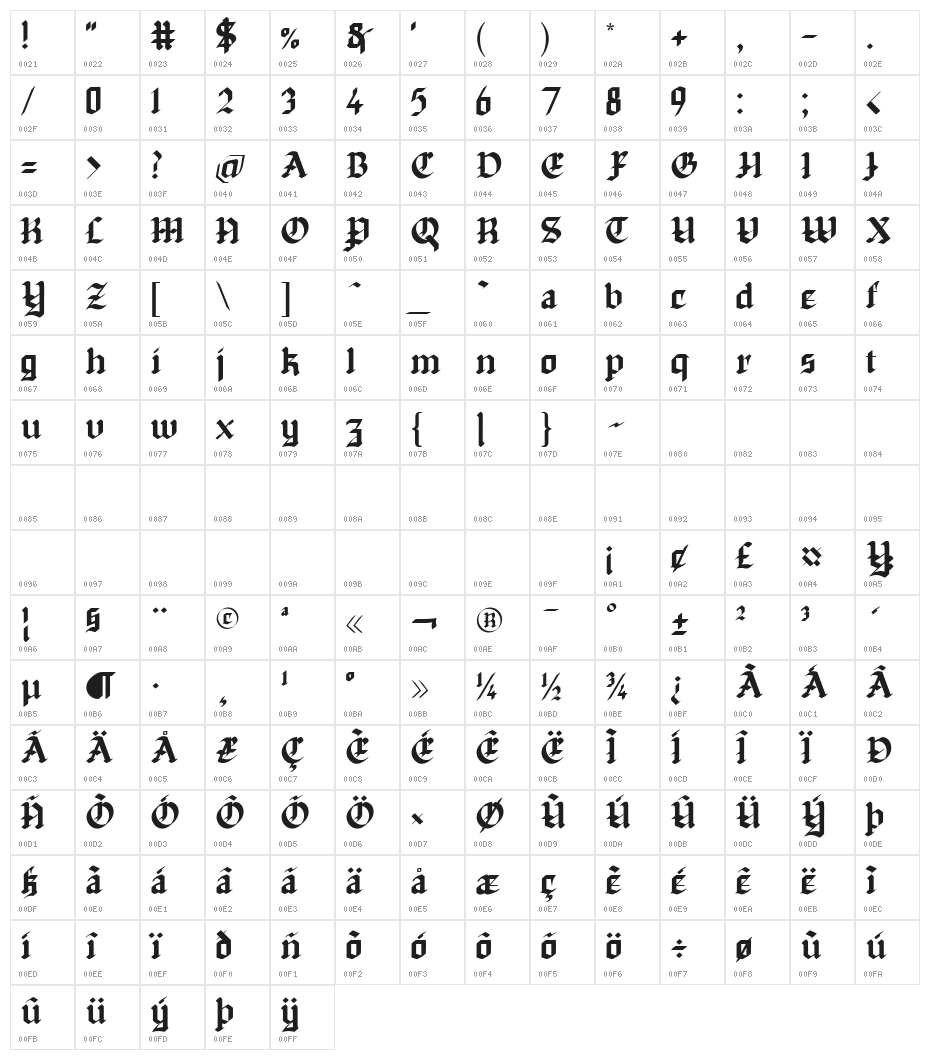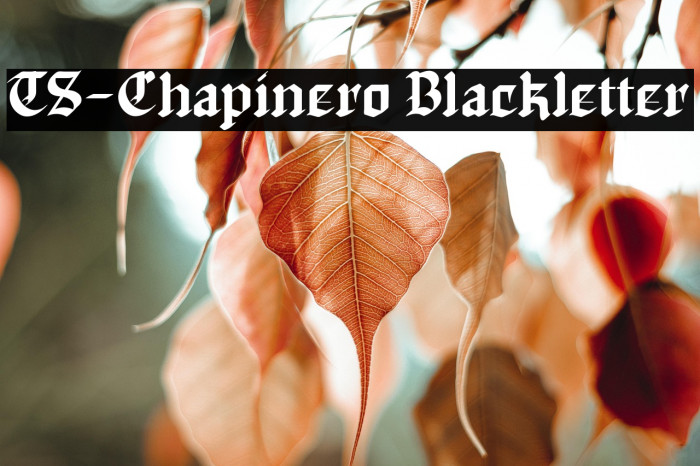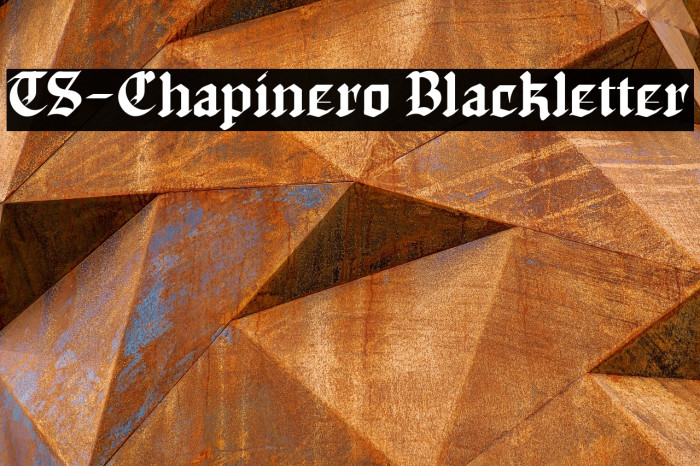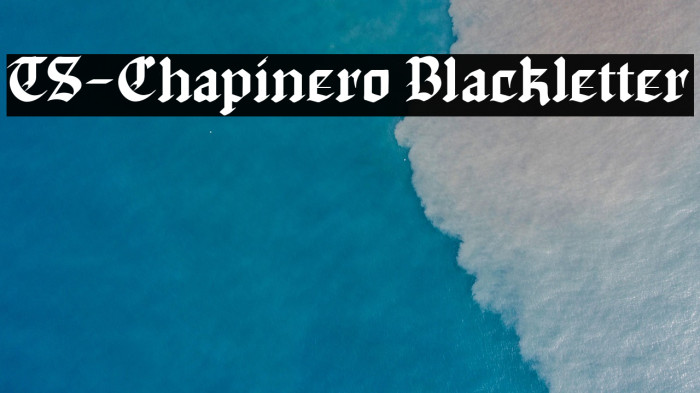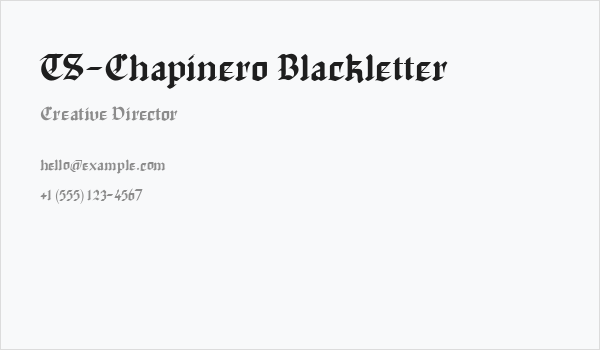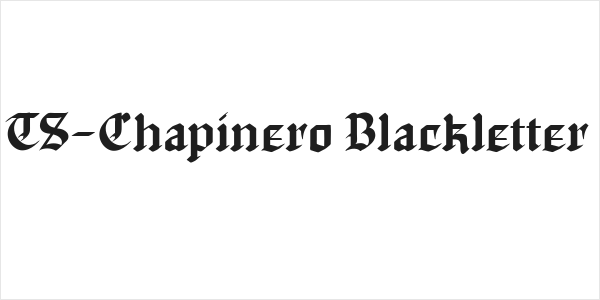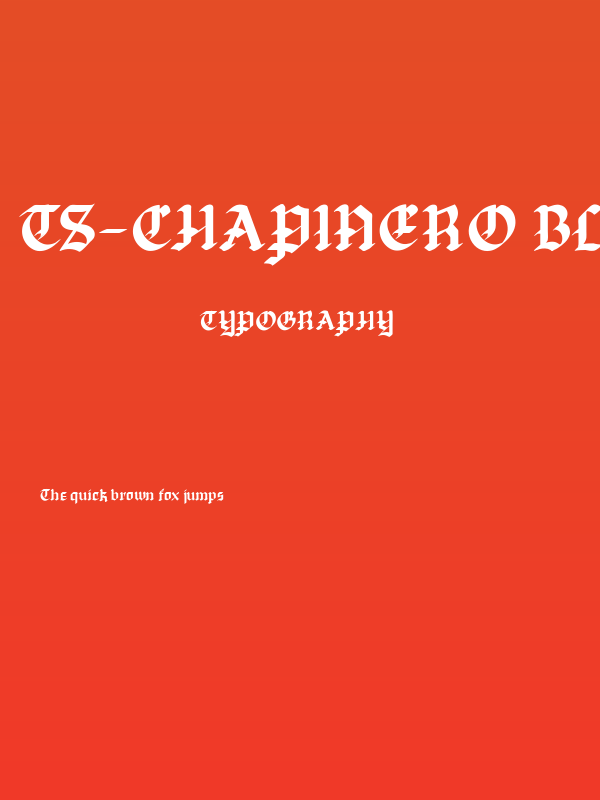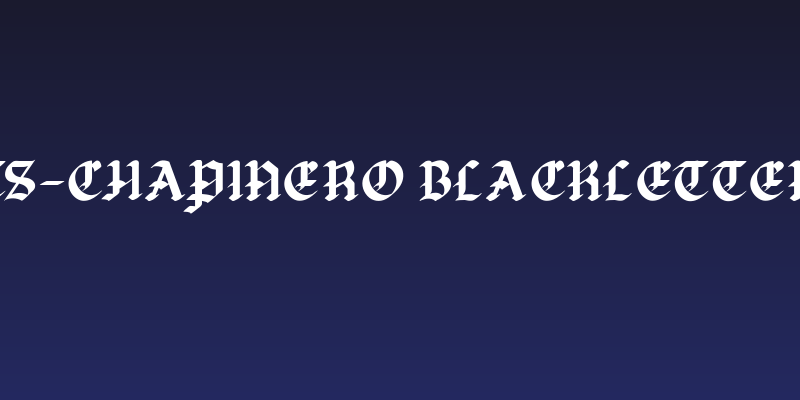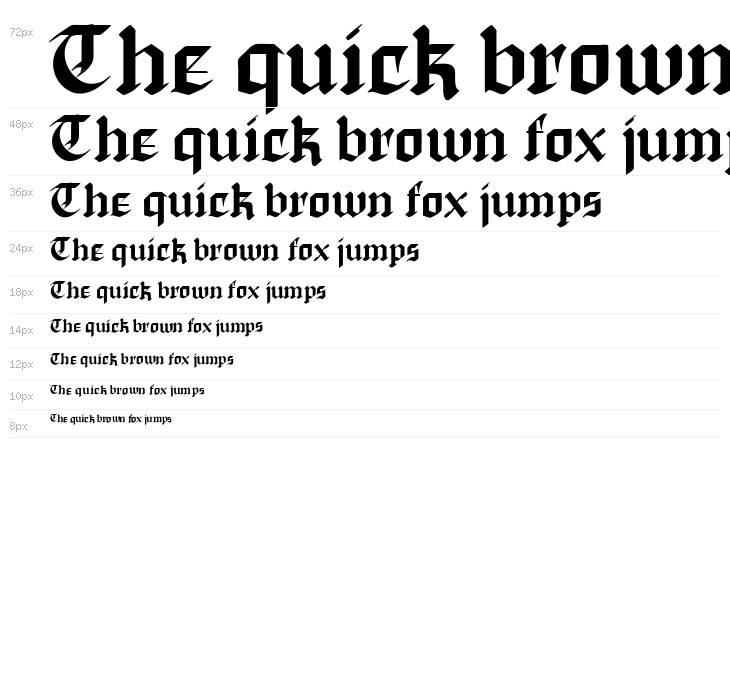
TS-Chapinero Blackletter Font
TS-Chapinero Blackletter Description
This font exhibits a traditional Blackletter style, characterized by its intricate and ornate design. The letters are bold and angular, with sharp edges and a distinct medieval appearance. The uppercase letters are particularly elaborate, featuring dramatic flourishes and pointed serifs. The lowercase letters maintain the same angularity, with a consistent stroke width that adds to the font's bold presence. The numbers and special characters are equally stylized, ensuring a cohesive look across all glyphs. This font's historical and decorative nature makes it suitable for projects that require a touch of classic elegance and formality.
| Use Case | Logos, Headlines, Certificates |
| Proposed Projects | Ideal for use in certificates, historical documents, logos, and branding that require a classic or gothic aesthetic. |